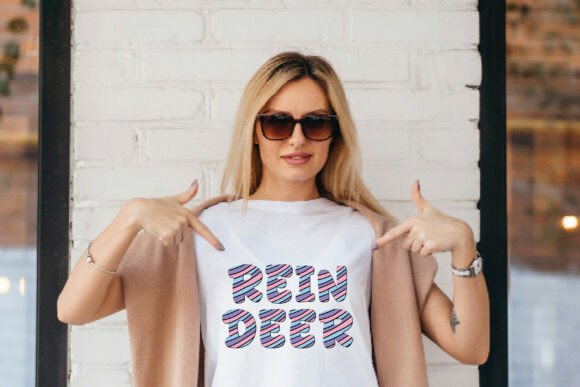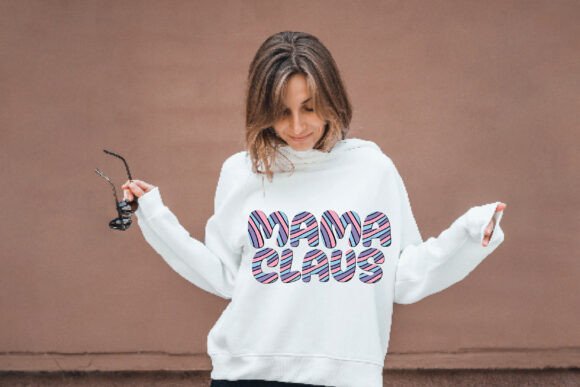
Rainbow Easter Font Font – Free Download
Introduction to Rainbow Easter Font Font
Fonts play a crucial role in design, and the Rainbow Easter Font font is a typeface that brings both character and versatility to any project. Whether you’re working on a branding project, a website, or a print design, the Rainbow Easter Font font offers a unique style that can elevate your work.
Rainbow Easter Colorful Cute Alphabets Celebrate Easter with bright colors and joyful style using the Rainbow Easter Font.
This playful and colorful alphabet is perfect for fun, kid-friendly, and cheerful spring designs This festive Rainbow Easter typeface features thick, bubbly characters filled with colorful, rhythmic stripes that perfectly match the βRainbow Easter OTFβ aesthetic.
Key Features of Rainbow Easter Font Font
Why Choose Rainbow Easter Font Font?
The Rainbow Easter Font font is more than just a typeface β it’s a design tool that helps you communicate your message with style and clarity. Its unique character set and versatile design make it suitable for a wide range of applications, from elegant invitations to bold headlines.
With its carefully crafted letterforms and balanced proportions, the Rainbow Easter Font font ensures readability and visual appeal across all mediums.
What makes Rainbow Easter Font font special?
The Rainbow Easter Font font stands out with its unique design, exceptional readability, and versatility across various design applications.